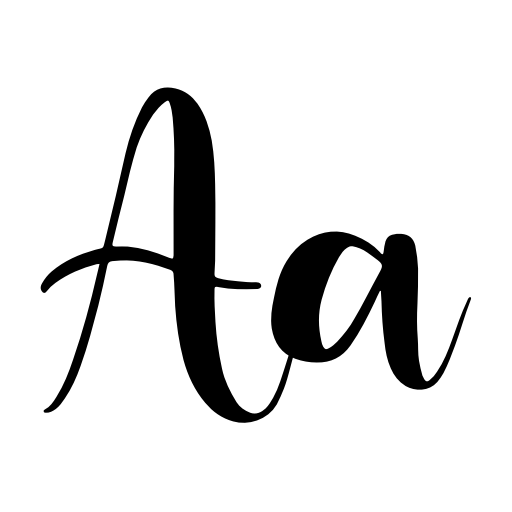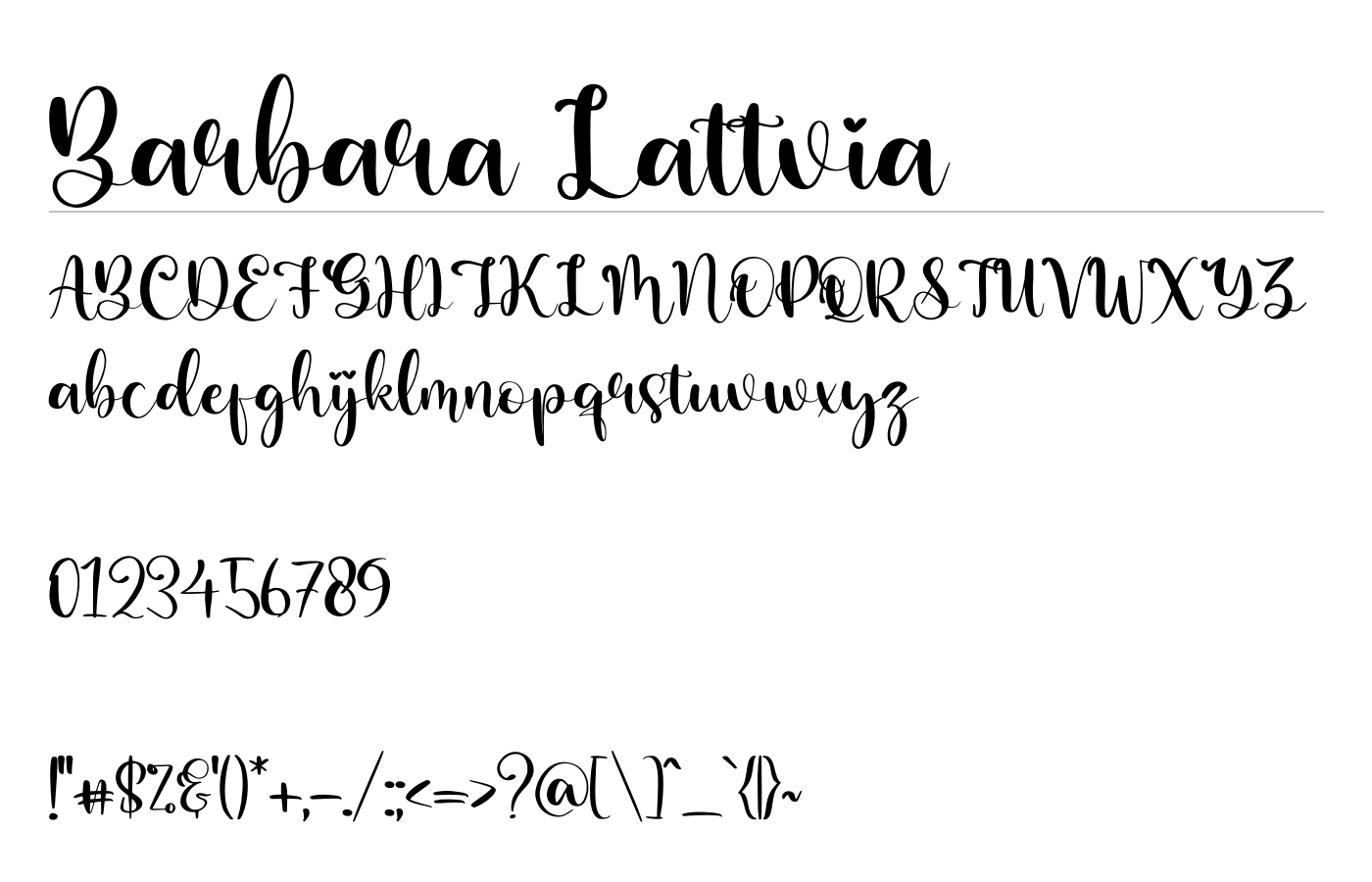
Barbara Lattvia is a charming script font with a hand-lettered feel, featuring smooth, flowing strokes and playful flourishes like heart-shaped dots that add a touch of whimsy. Its moderate contrast and rounded, lively letterforms make it perfect for feminine, romantic, or casual branding, invitations, and creative projects where personality and warmth are key. This font works beautifully in headlines, logos, and packaging that seek a friendly, elegant, yet approachable style.
Barbara Lattvia Font
About Barbara Lattvia Font